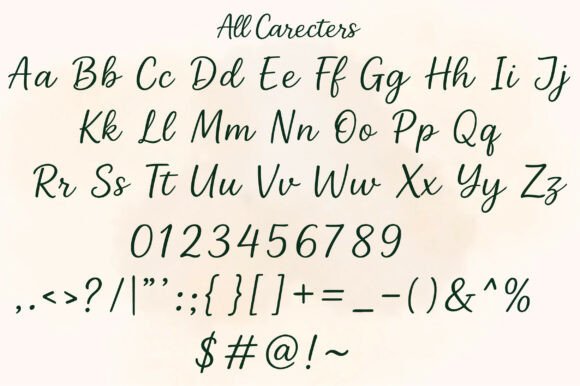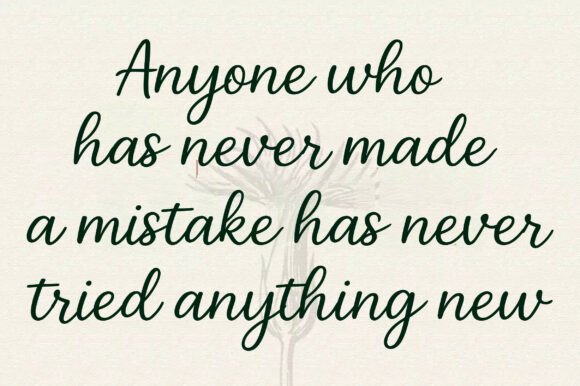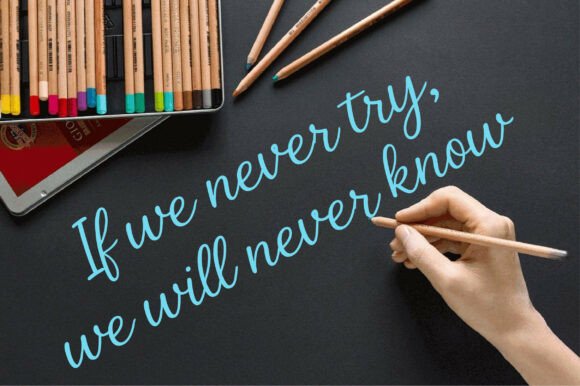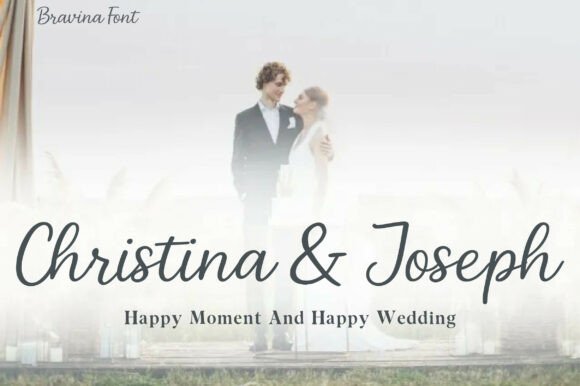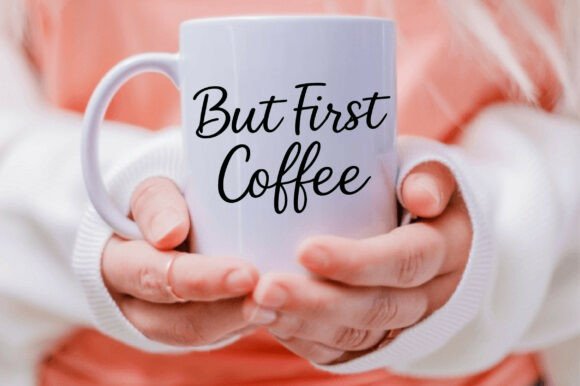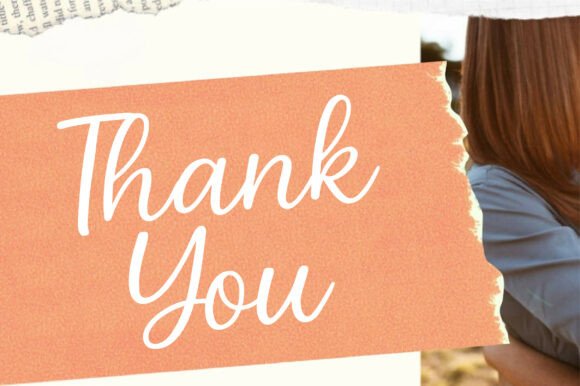
Adding a Touch of Warmth to Your Designs
Have you ever sat down with a blank sheet of paper, a pen in hand, and a spark of inspiration? As you begin to scribble out your ideas, the words start to flow, and a beautiful handwritten script emerges. That’s the magic of creating something truly personal and unique.
For designers looking to add a touch of elegance and warmth to their projects, the Bravina Font is the perfect companion. This clean and elegant handwritten script font is designed to bring a friendly and stylish feel to your creative endeavors. With its smooth curves and simple strokes, Bravina Font is perfect for a variety of projects, from greeting cards to branding and logos.
Whether you’re working on a casual or professional project, the Bravina Font is an invaluable tool in your design arsenal. Its modern handwritten style and excellent legibility make it a versatile choice that’s sure to bring a soft, charming, and authentic look to your designs.
Bravina Font Key Features
- Font Family: Bravina Font comes in two font families – Bravina Regular and Bravina Bold.
- Unique Characteristics: Bravina Font features a unique blend of modern and vintage elements, giving it a distinctive look that sets it apart from other fonts.
Designer Review: Bravina Font
Overall, I found Bravina Font to be a decent option for certain design projects. While it has its limitations, it also has some great features that make it worth considering.
- Unique and stylish aesthetic: Bravina Font has a distinct look that can add a touch of sophistication to designs.
- Wide range of weights and styles: With multiple weights and styles to choose from, designers can experiment with different looks and feels.
- Good for headlines and titles: Bravina Font’s bold and eye-catching design makes it well-suited for use in headlines and titles.
- May be too bold for body text: While great for headlines, Bravina Font can be overwhelming for body text, making it difficult to read.
- Limited language support: Bravina Font may not be optimized for certain languages, which can lead to display issues.
- Not suitable for small text sizes: Bravina Font’s bold design can make it difficult to read at small text sizes.
While Bravina Font has its limitations, it’s a great option for designers looking to add a touch of sophistication to their designs. With careful use, it can be a powerful tool in the right projects.
Tips for Getting the Most Out of Bravina Font
To get the most out of Bravina Font, use it in combination with bold and italics to create a visually appealing design. You can also use Bravina Font for creating logos, titles, and headings to make your design stand out.
Bravina Font is commonly used for creating bold and eye-catching designs, such as: logos, titles, headings, and body text. It is also used for creating presentations, documents, and websites that require a modern and professional look.
Alternatives to Bravina Font
Great Vibes is a beautiful, handwritten font perfect for adding a personal touch to your designs. It features elegant lines, unique flourishes, and a wide range of styles to suit various moods. Great Vibes is ideal for use in invitations, quotes, and other creative projects where a touch of personality is required.
Comparison to Bravina Font: While both fonts are handwritten, Great Vibes has a more elegant and refined feel, making it suitable for more upscale designs. Bravina Font, on the other hand, has a more casual and playful tone.